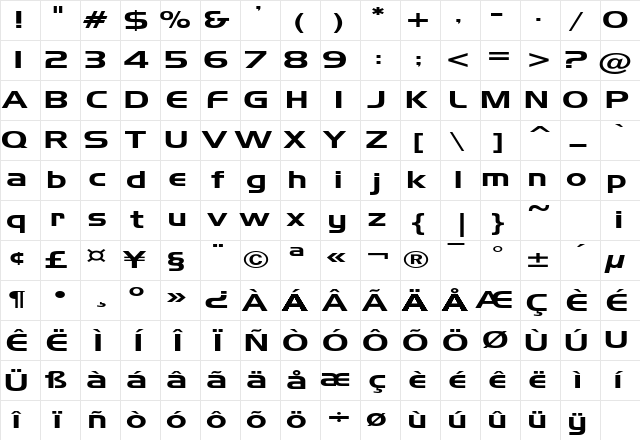
AeroExtended Regular
AeroExtended Family
AeroExtended Regular
Design Context for AeroExtended
AeroExtended is a composed and adaptable typeface that performs quietly and consistently across a wide range of design contexts.